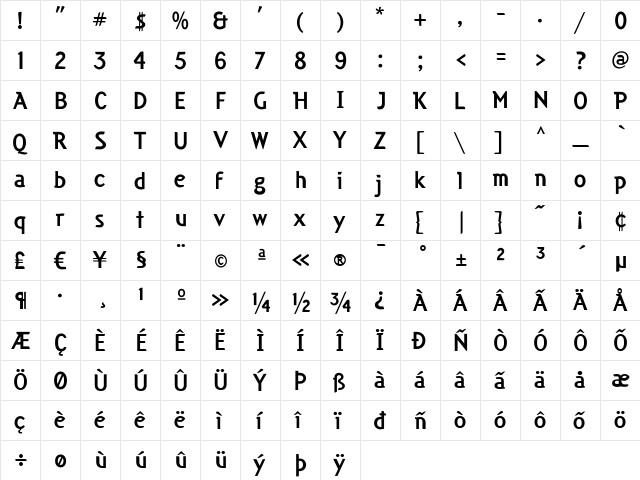
Cuban Regular
Design Context for Cuban Typeface
Cuban offers clean, dependable letterforms without strong stylistic allegiance, making it a practical choice for designers who need flexibility.